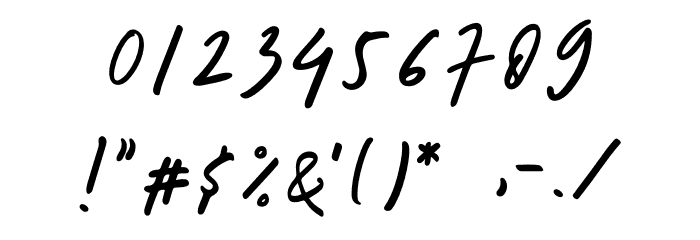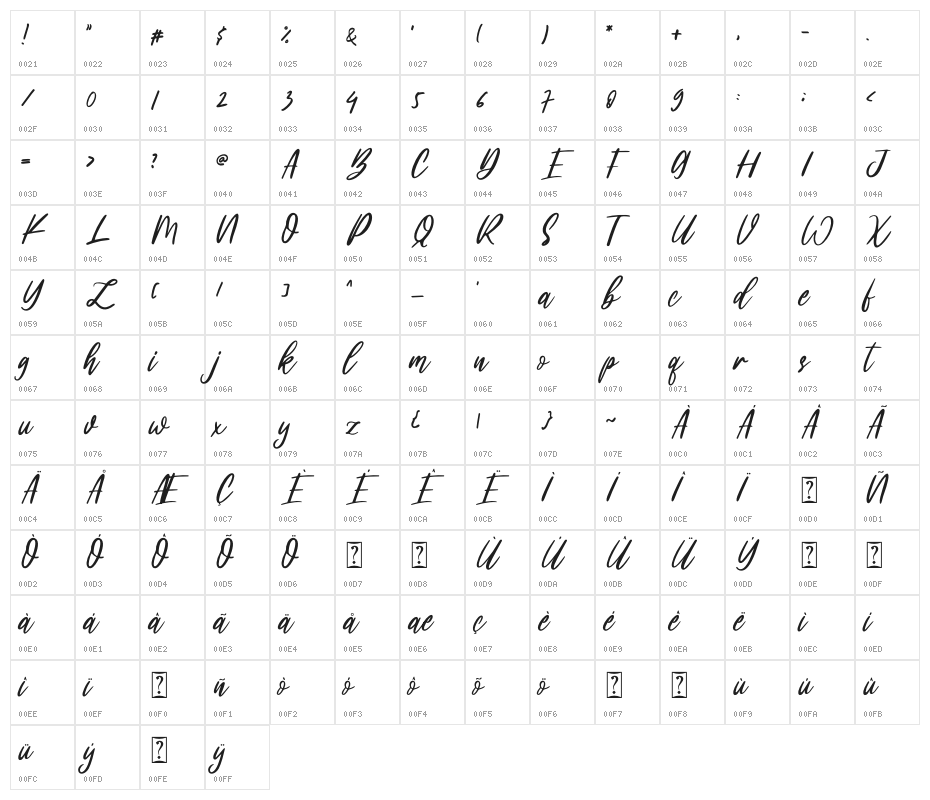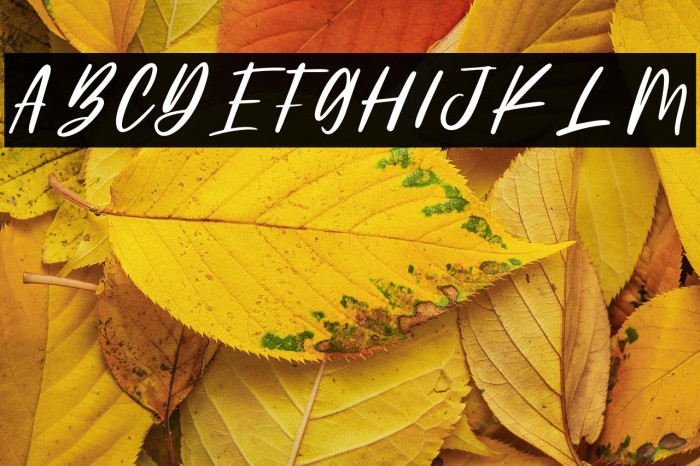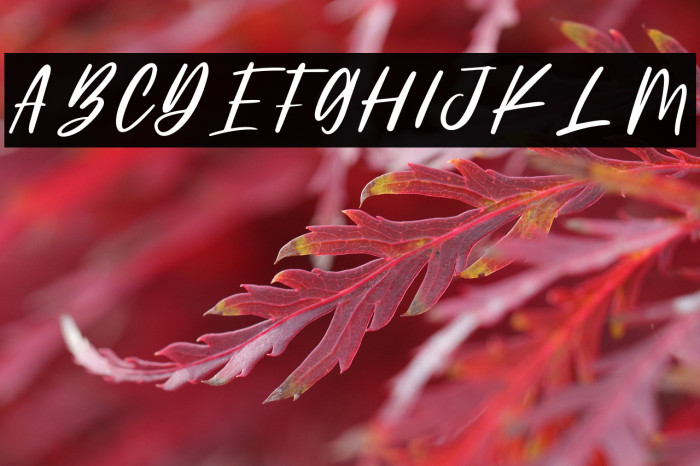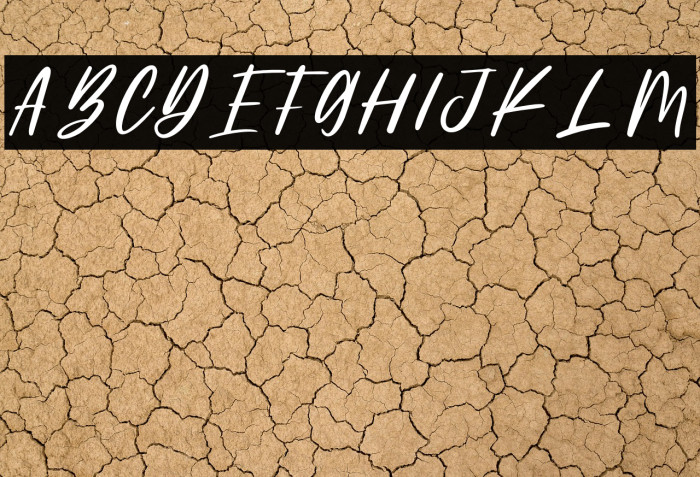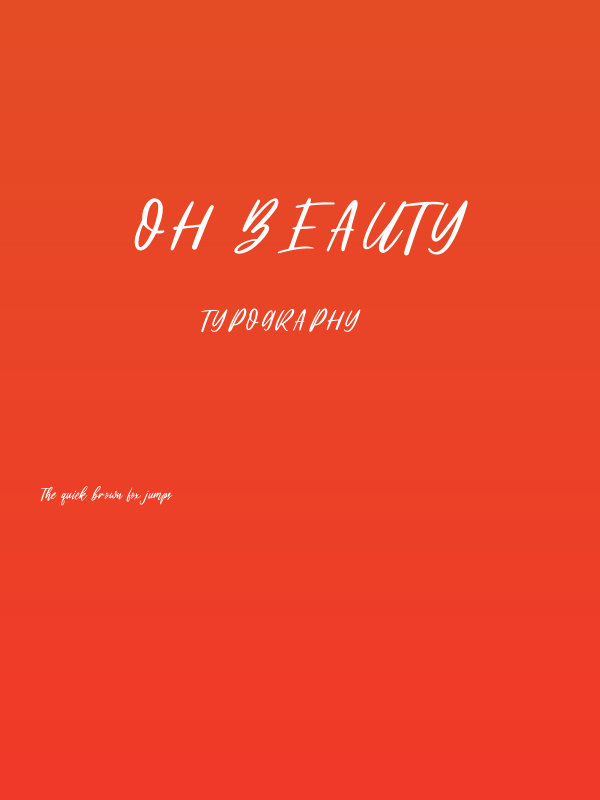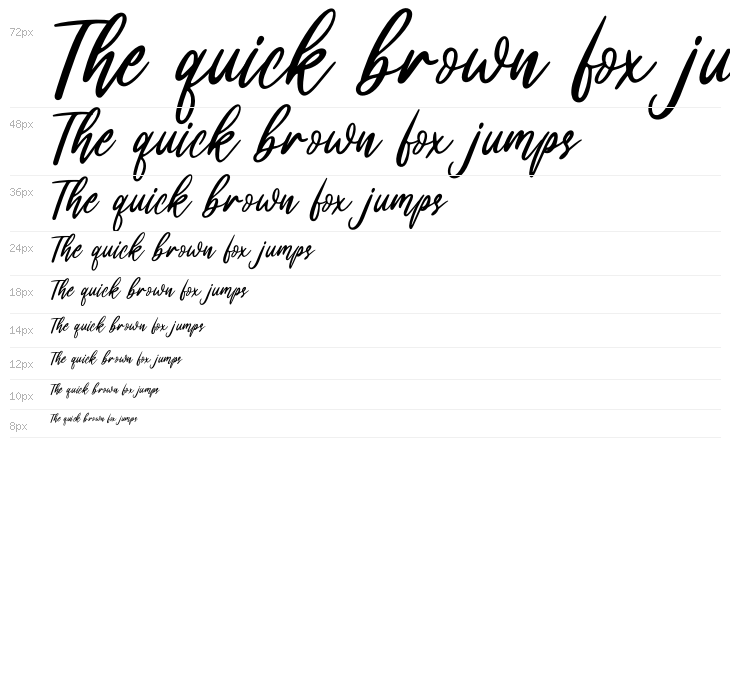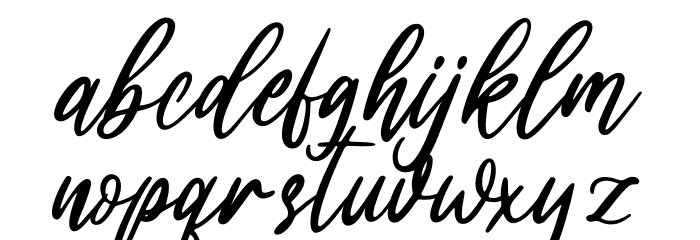
oh beauty Font
oh beauty Description
This font features a dynamic and fluid script style, characterized by its elegant, flowing lines and a sense of motion that mimics natural handwriting. The uppercase letters are bold and slightly slanted, giving a sense of sophistication and flair. The lowercase letters maintain a consistent rhythm, with smooth connections between characters that enhance readability. The numerals and special characters are crafted with the same attention to detail, ensuring a cohesive look across all elements. This font's overall aesthetic is both modern and timeless, making it versatile for various design needs.